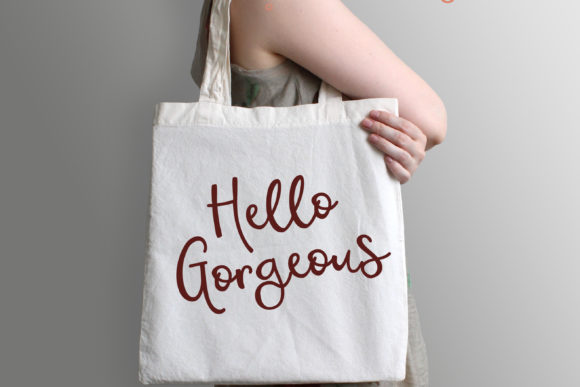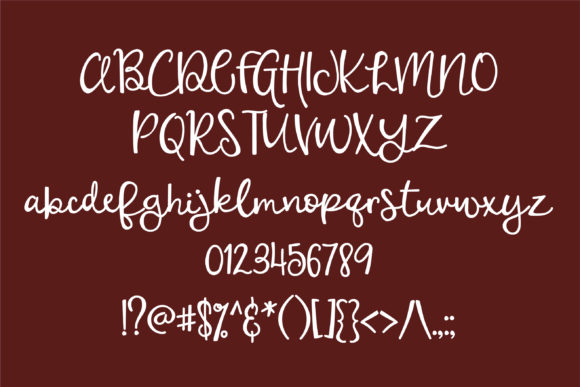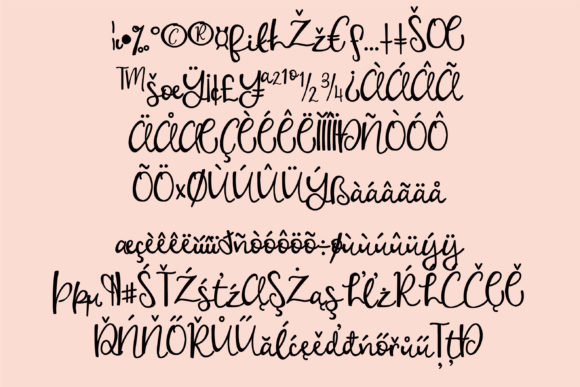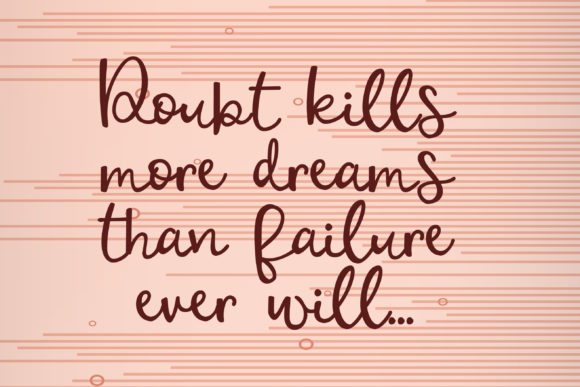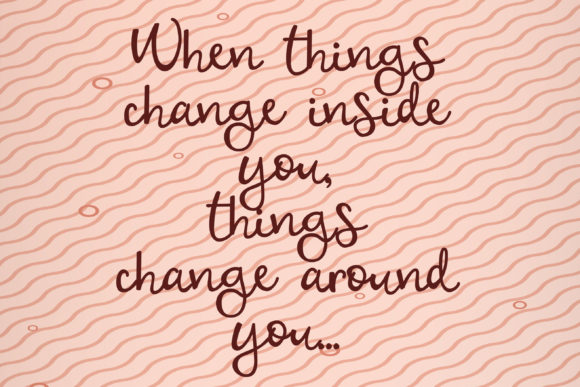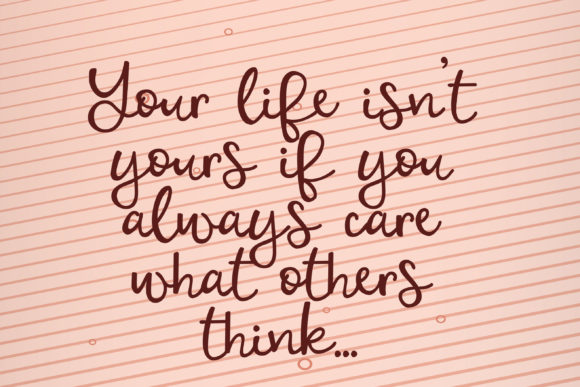
ZP Wolfhound Font
About ZP Wolfhound Font
Wolfhound is a cute and casual handwritten font with an incredibly friendly feel. Fall in love with its authentic feel and use it to create gorgeous wedding invitations, beautiful stationary art, eye-catching social media posts, and cute greeting cards.